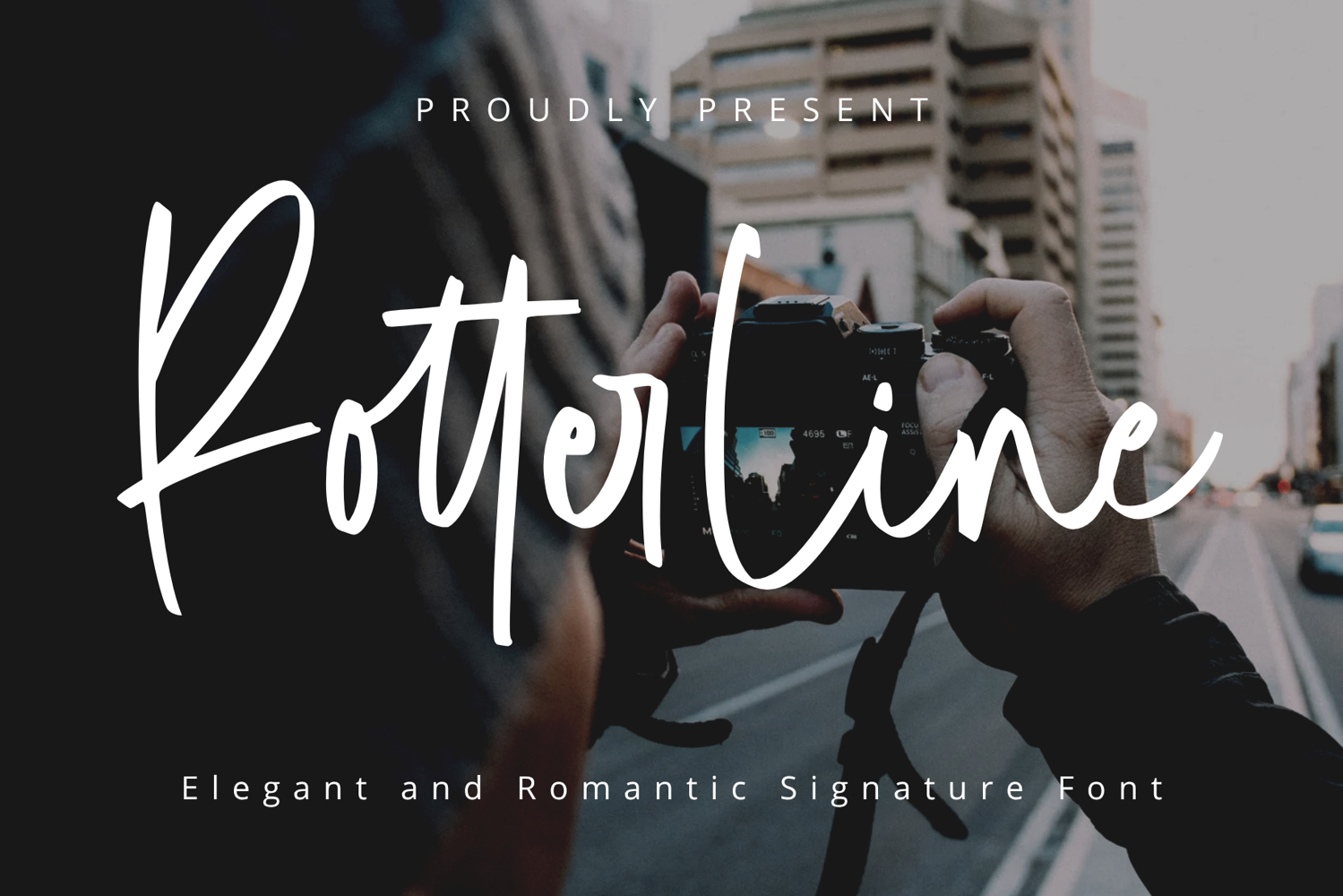
Rotterline
Rotterline - Italic
Rotterline
Rotterline is a modern signature font with smooth, elegant strokes and a natural handwritten style. It’s perfect for logos, branding projects, wedding invitations, product packaging, photography watermarks, quotes, and social media posts.